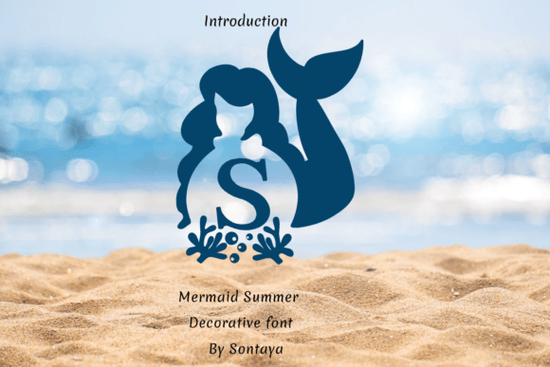
If you're looking for a decorative font that brings seaside charm and gentle whimsy to summer projects think party invites, boutique labels, or children’s book covers the Mermaid Summer Font fits naturally. Designed by Sontaya, it’s not just another script font with ocean-themed extras; it’s a cohesive, hand-lettered typeface where mermaid silhouettes, flowing tails, and coral flourishes are built into the character set not tacked on as separate graphics. That means consistent spacing, real typographic rhythm, and no awkward layering or alignment headaches when you’re designing.
What makes Mermaid Summer different from other summer fonts?
Most decorative fonts lean heavily on either script elegance or bold display energy but Mermaid Summer balances both. Its lowercase letters have soft, rounded terminals and subtle bounce, while capitals carry gentle curves and open counters. The included alternates (like swash capitals and tail-end ligatures) feel intentional, not gimmicky. And unlike fonts that rely on clipart-style sea icons, this one uses integrated glyphs: a mermaid glyph appears as part of the letterform in some stylistic sets, and coral motifs act as seamless word dividers or line endings. It’s designed to work with your layout not fight it.
Where does it work best in real projects?
You’ll get clean, readable results in contexts where personality matters but legibility can’t be sacrificed:
- Summer party invitations especially for beach birthdays, mermaid-themed baby showers, or poolside gatherings. Pair it with light aqua or sandy neutrals for instant cohesion.
- Boutique branding think small-batch swimwear labels, coastal candle shop tags, or handmade soap packaging. The font’s warmth helps convey craft and care without feeling overly childish.
- Children’s books and early-learning printables its friendly proportions and open shapes make it easier for young readers to distinguish letters, while the aquatic theme supports storytelling.
- Print-on-demand designs works well on mugs, tote bags, and tees because the outlines hold up at medium sizes (16–32 pt), and the vector-based OTF/SVG files scale cleanly.
How does it compare to similar fonts on Creative Fabrica?
While Hi Summer Font leans into bright, energetic retro vibes and Alex Font offers a more modern, minimalist script Mermaid Summer sits comfortably in the middle: playful but refined, decorative but functional. If you’ve tried Paws Dog Font for pet-themed projects and liked its hand-drawn texture, you’ll recognize a similar authenticity here just swapped for ocean motifs instead of paws and bones.
It also shares design sensibilities with other Sontaya fonts: attention to weight consistency, thoughtful kerning pairs, and clear documentation for OpenType features (like automatic mermaid-tail connectors between certain letters). You won’t need to manually insert glyphs every time you can let the font engine do the work.
If those match up, Mermaid Summer Font is ready to bring quiet magic to your next coastal project no splash required.